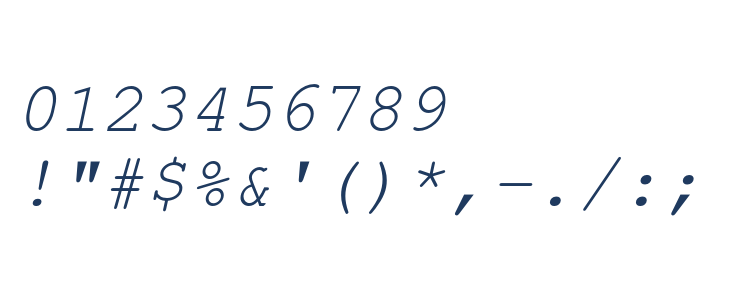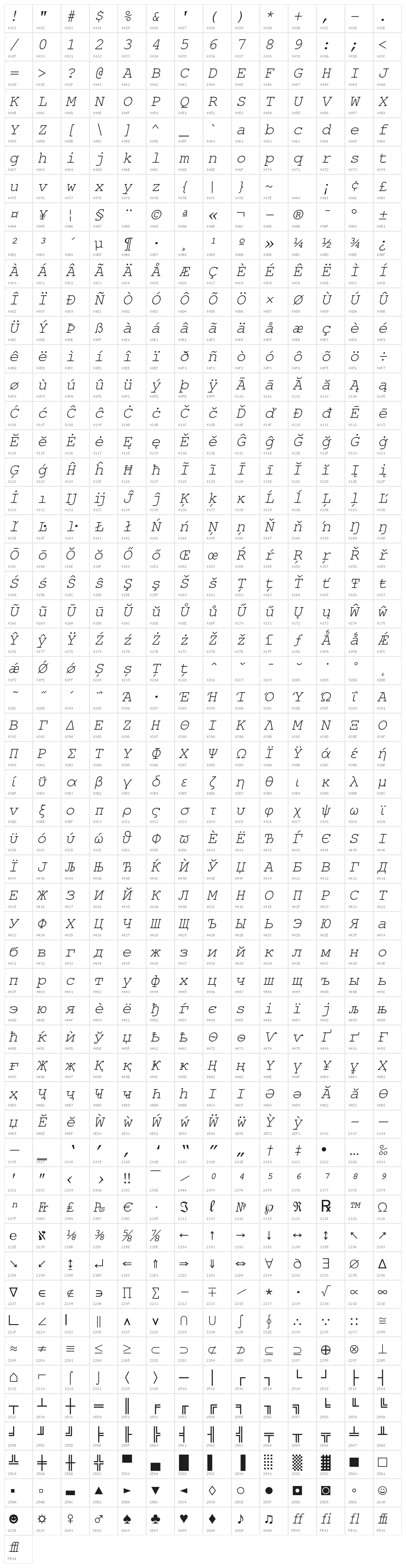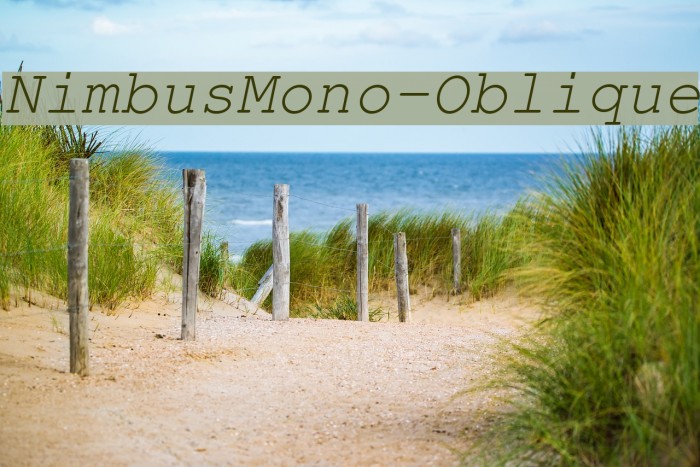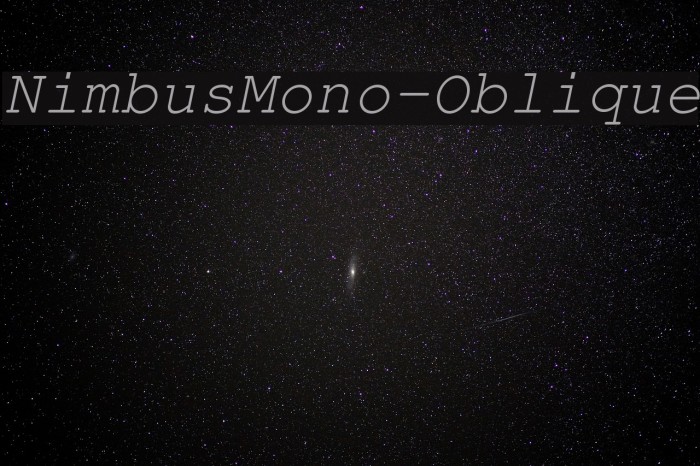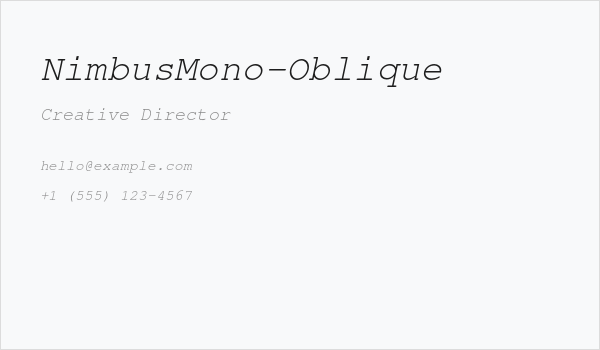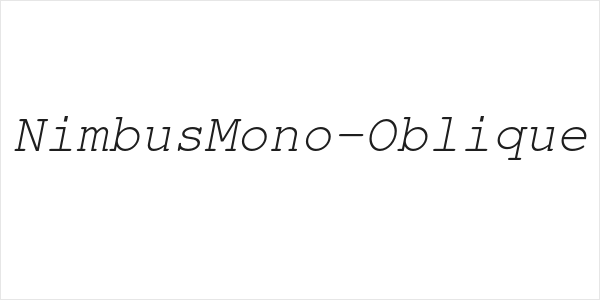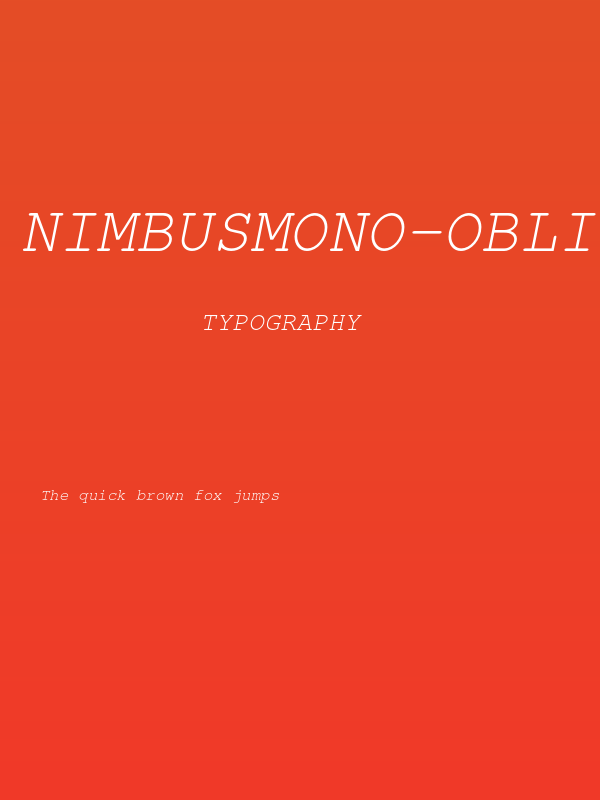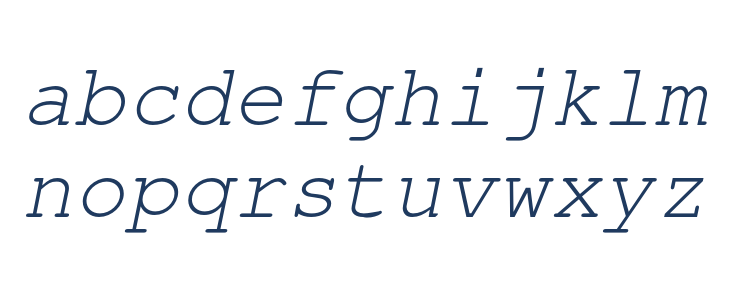
NimbusMono-Oblique Font
NimbusMono-Oblique Description
This font features a monospaced design with a distinct oblique style, giving it a slanted appearance that adds a dynamic and modern touch. Each character maintains a uniform width, which is typical of monospaced fonts, ensuring consistent alignment and spacing. The strokes are clean and precise, with a medium contrast that provides clarity and readability. The italicized slant of the characters adds a sense of movement and fluidity, making it suitable for technical documents or coding environments where readability and style are both important.
| Use Case | Coding, Technical documents |
| Proposed Projects | Ideal for coding, technical documents, and any project requiring precise alignment and a modern aesthetic. |